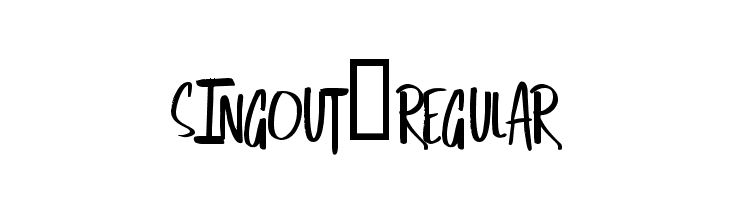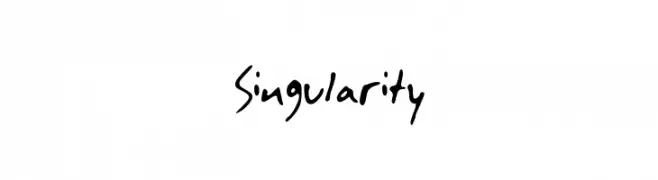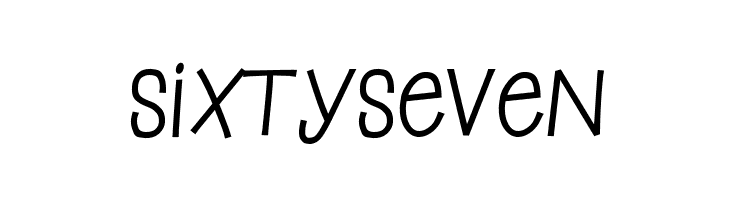
( Fonts by Kurdz )
A dynamic, handwritten font with playful and expressive strokes.
( Fonts by Aly K. Salazar )
A whimsical, hand-drawn font with tall, narrow characters.
( Fonts by Kreative Korporation - www.kreativekorp.com )
A bold, playful handwritten font with dynamic strokes.
( Fonts by Altsys Metamorphosis )
A playful, casual font with rounded, slightly slanted letterforms.
( Fonts by Emerald City Fontwerks )
A dynamic, expressive handwritten font with fluid, cursive letterforms and artistic flourishes.